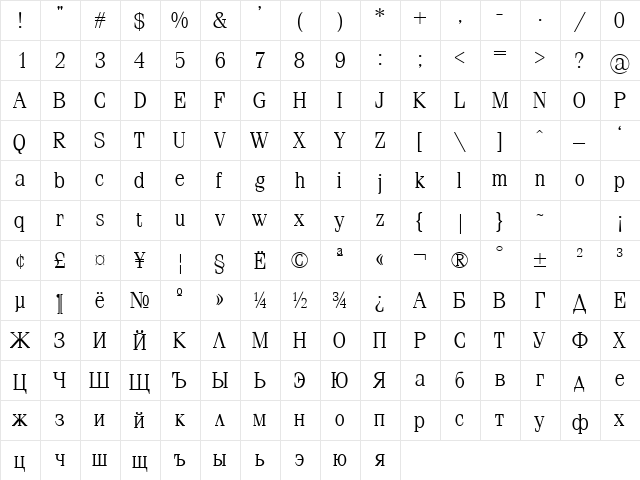
SimeizLight Light
Design Context for SimeizLight Typeface
SimeizLight offers clean, dependable letterforms without strong stylistic allegiance, making it a practical choice for designers who need flexibility. Its slender proportions lend an understated elegance to any composition.
Pro Tip: Pair SimeizLight with a font of contrasting weight or personality to build a more expressive typographic hierarchy.